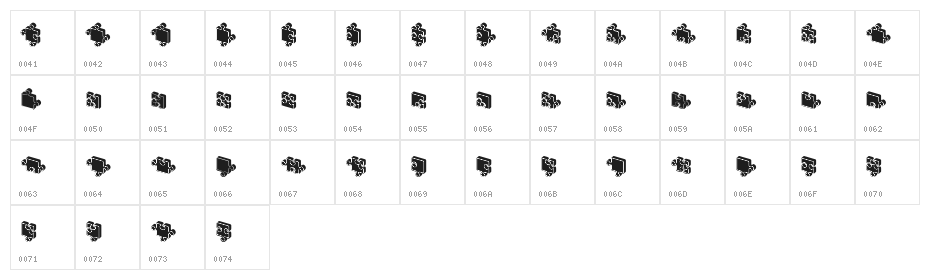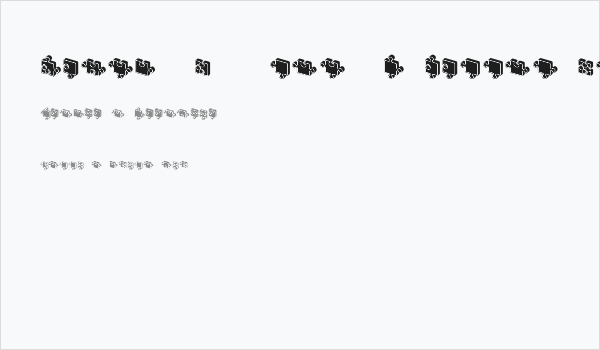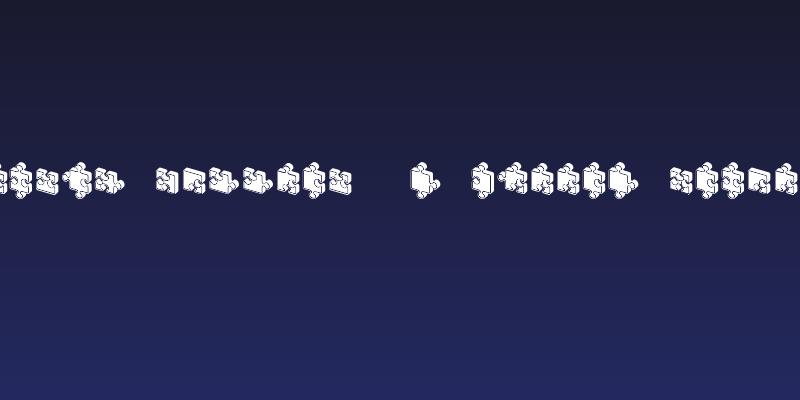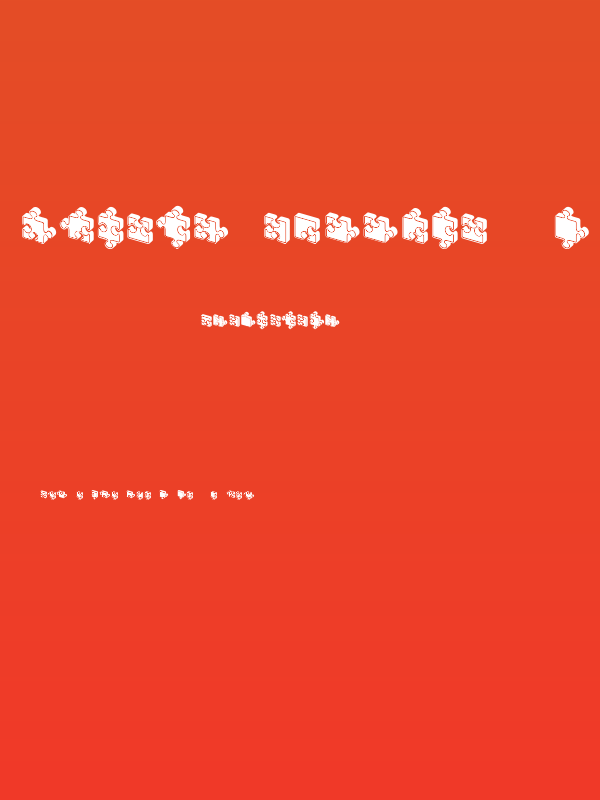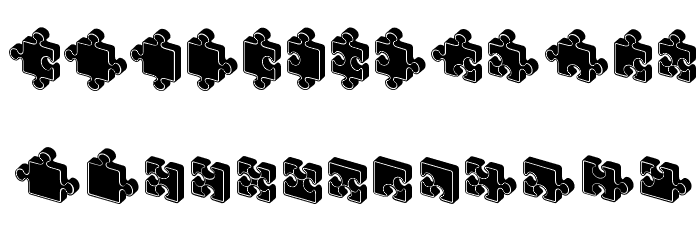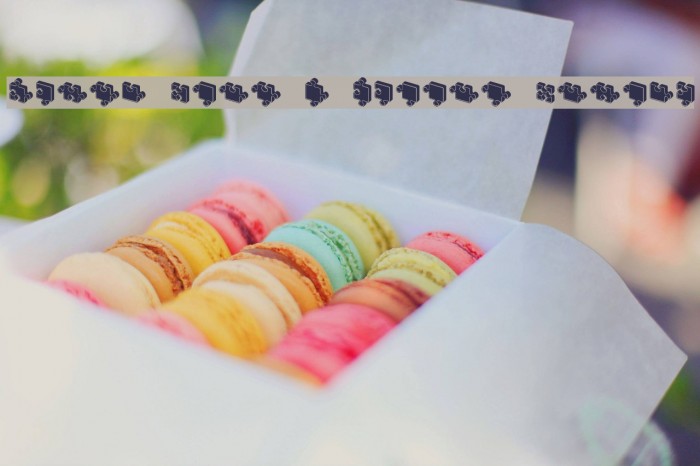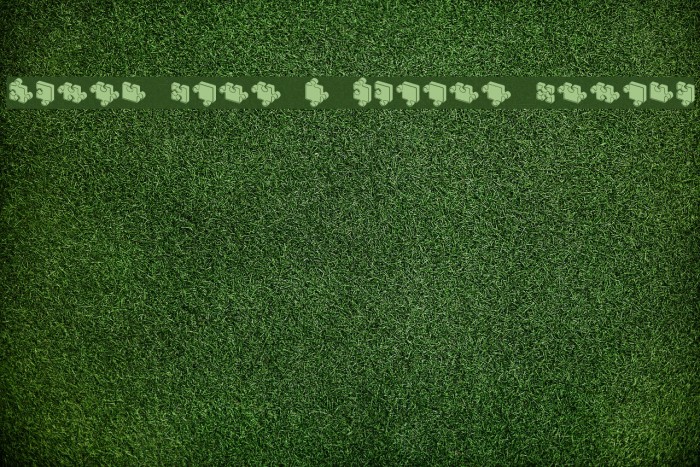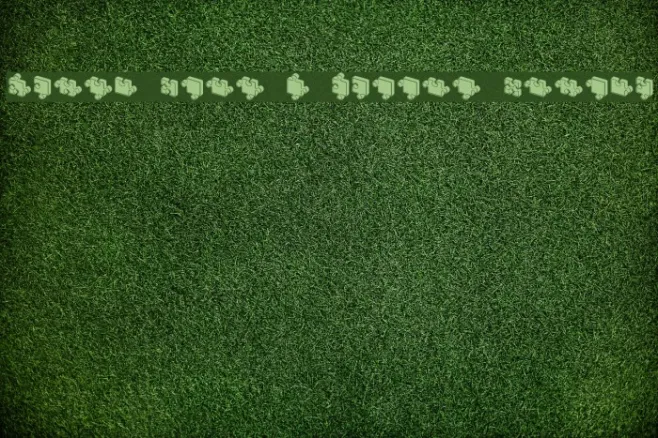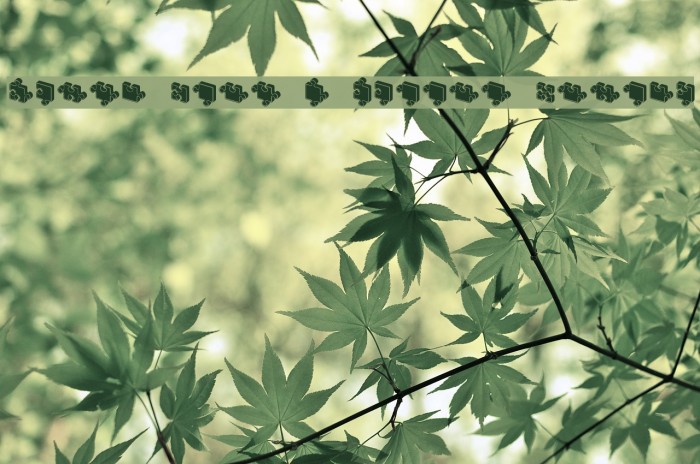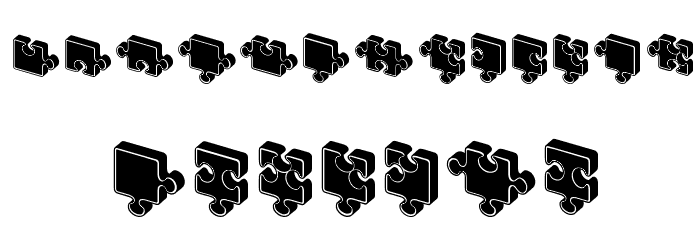
Jigsaw Puzzles 3D Filled Regular Font
Jigsaw Puzzles 3D Filled Regular Description
This font features a unique 3D jigsaw puzzle piece design for each character, creating a playful and engaging visual effect. The characters are filled with a solid color and outlined with a contrasting border, enhancing their dimensional appearance. The puzzle pieces interlock visually, suggesting connectivity and creativity. This decorative style is eye-catching and distinct, making it suitable for projects that require a fun and innovative look. The font's design is consistent across all characters, maintaining a cohesive theme throughout.
| Use Case | Logos, Headlines, Posters |
| Proposed Projects | Ideal for children's books, educational materials, playful branding, and creative event invitations. |